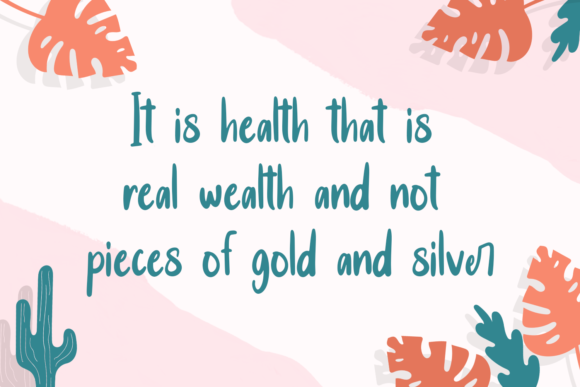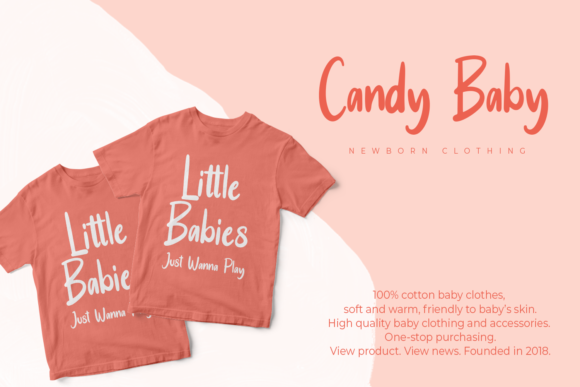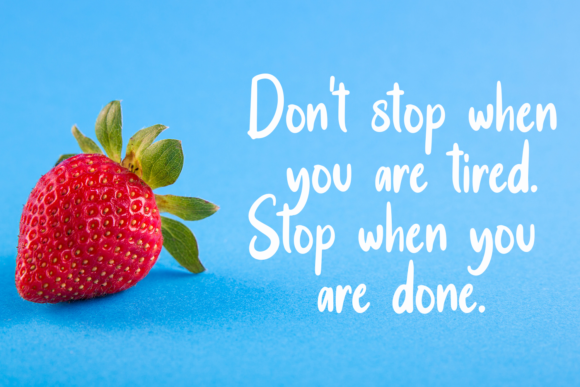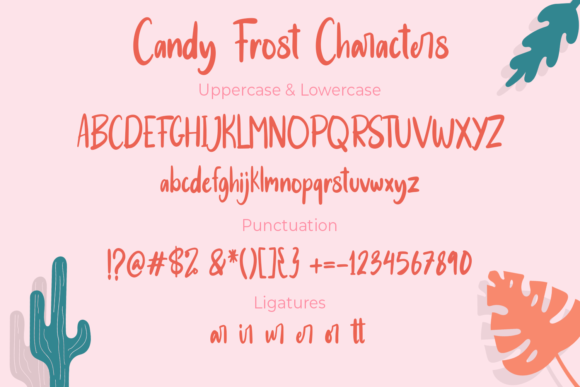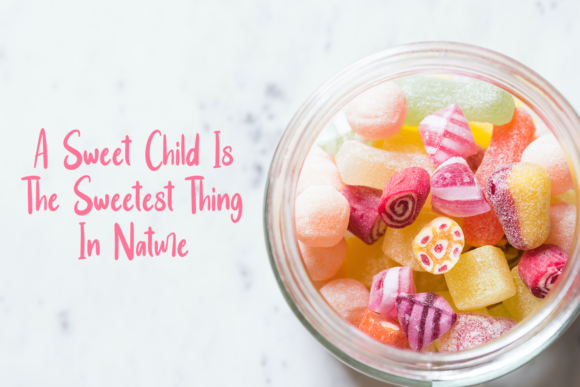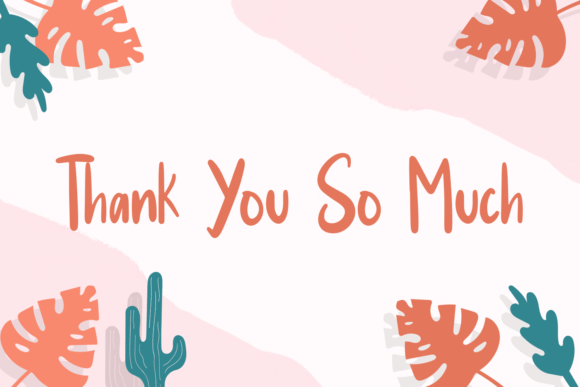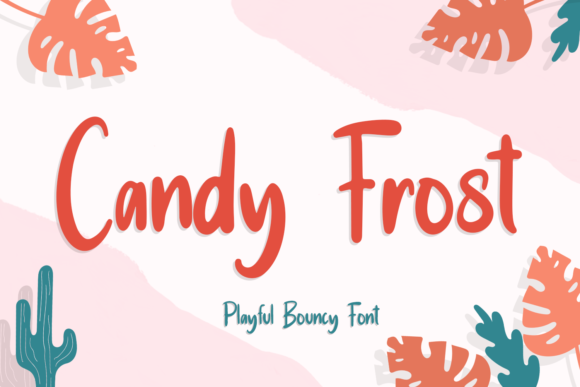
Candy Frost Font: The Sweetest Addition to Your Design Collection
Are you a designer or crafter looking for a unique and elegant handwritten font to add a touch of personality to your designs? Look no further than Candy Frost Font! This beautiful font is perfect for a variety of design projects, from wedding invitations and thank you cards to logos and greeting cards.
What is Candy Frost Font?
Candy Frost Font is a one-of-a-kind, handwritten font that exudes elegance and sophistication. Its delicate and cursive script makes it perfect for designs that require a personal touch. The font is designed to be versatile and can be used for a wide range of projects, from formal events like weddings and anniversaries to more casual designs like greeting cards and logos.
Features of Candy Frost Font
- Unique and Elegant Design: Candy Frost Font boasts a distinctive and refined design that will set your creations apart from the rest.
- Handwritten Style: The font’s handwritten style gives it a personal and organic feel, making it perfect for designs that require a touch of warmth and personality.
- Versatile: Candy Frost Font can be used for a wide range of design projects, from wedding invitations and greeting cards to logos and more.
- Easily Readable: Despite its elegant and cursive script, Candy Frost Font is easily readable, making it perfect for designs that require a clear and concise message.
Uses of Candy Frost Font
Candy Frost Font is perfect for a variety of design projects, including:
- Wedding Invitations: Add a touch of elegance and sophistication to your wedding invitations with Candy Frost Font.
- Thank You Cards: Express your gratitude in style with Candy Frost Font’s beautiful and delicate script.
- Greeting Cards: From birthday cards to anniversary cards, Candy Frost Font is perfect for any occasion.
- Logos: Use Candy Frost Font to create a unique and memorable logo for your business or brand.
- Stationery: Add a touch of personality to your stationery with Candy Frost Font’s elegant and handwritten style.
Why Choose Candy Frost Font?
With so many fonts available, why choose Candy Frost Font? Here are just a few reasons:
- Unique Design: Candy Frost Font’s unique design ensures that your creations will stand out from the rest.
- Elegant and Sophisticated: The font’s elegant and sophisticated style makes it perfect for formal events and designs.
- High-Quality: Candy Frost Font is a high-quality font that is designed to produce crisp and clear results.
Tips for Using Candy Frost Font
Here are a few tips for getting the most out of Candy Frost Font:
- Pair with Other Fonts: Pair Candy Frost Font with other fonts to create a unique and visually appealing design.
- Use for Headings and Titles: Use Candy Frost Font for headings and titles to add a touch of elegance and sophistication.
In conclusion, Candy Frost Font is a unique and elegant handwritten font that is perfect for designers and crafters looking to add a touch of personality to their designs. With its delicate and cursive script, versatile design, and easily readable style, Candy Frost Font is perfect for a wide range of design projects. So why wait? Download Candy Frost Font today and start creating beautiful and unique designs!
| Font Name | Candy Frost Font |
| Author | TempCraft |